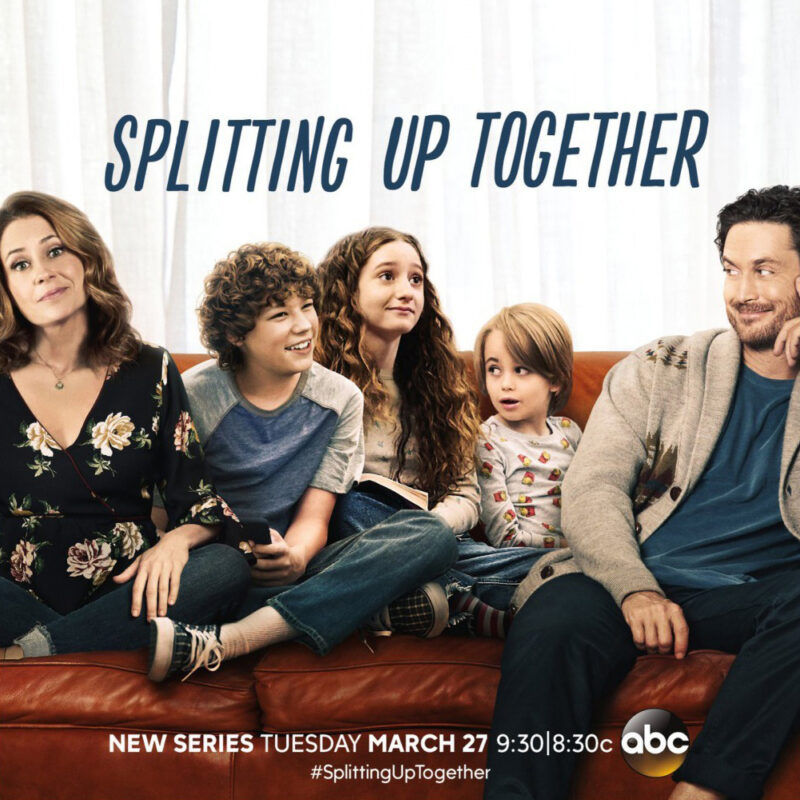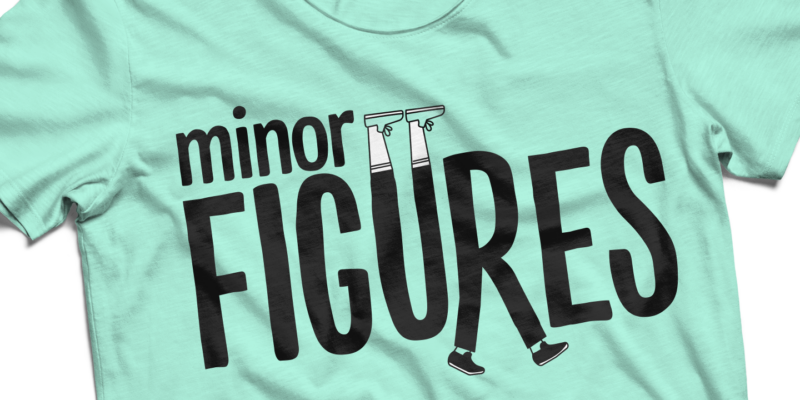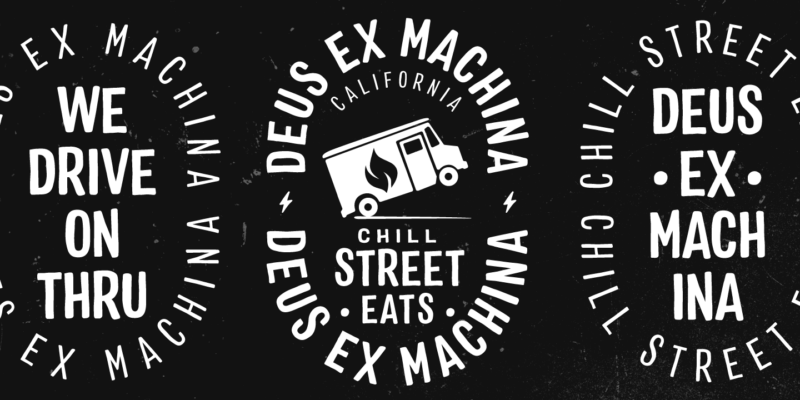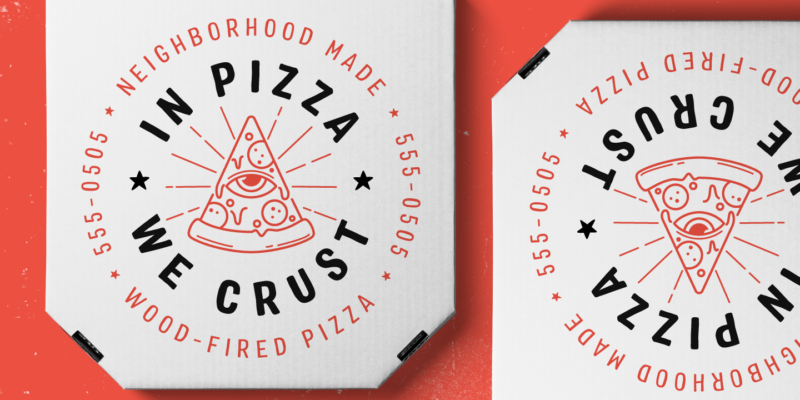
Colby Font Family
Colby is a hand-drawn workhorse sans serif family. It consists of a wide range of weights and widths for a variety of applications. Colby balances the quirkiness of hand-drawn letters with the legibility of a clean sans serif. This combination provides authentic warmth with functional benefits. The fonts feature plenty of alternates, icons and arrows to add character and customization. Colby is perfect for packaging, restaurant menus, children’s books, digital applications, but will be comfortable in any situation.
In-Use
Colby font by J Foundry — the upright sans serif words “SPLITTING UP TOGETHER” above a family on a couch, with additional text “NEW SERIES TUESDAY MARCH 27 9:30|8:30c” and the ABC logo below
Colby font by J Foundry — the word “minor” in upright sans serif letters above the word “FIGURES” in larger, bolder upright sans serif letters, with cartoon legs and feet attached to the letters “U” and “R”
Colby font by J Foundry — three circular logos with distressed sans serif lettering, the center one featuring a food truck icon and the words “CHILL STREET EATS”
Colby font by J Foundry — a circular logo with a slice of pizza featuring an eye, surrounded by the words “IN PIZZA WE CRUST” and “NEIGHBORHOOD MADE WOOD-FIRED PIZZA” with phone numbers and stars.
Hand-drawn forms
Compressed to Wide
Alternate A, Y
Alternate I, E, Y
Alternate g, a, e
Alternate S, N,
Ligatures
Fractions
Arrows & Icons